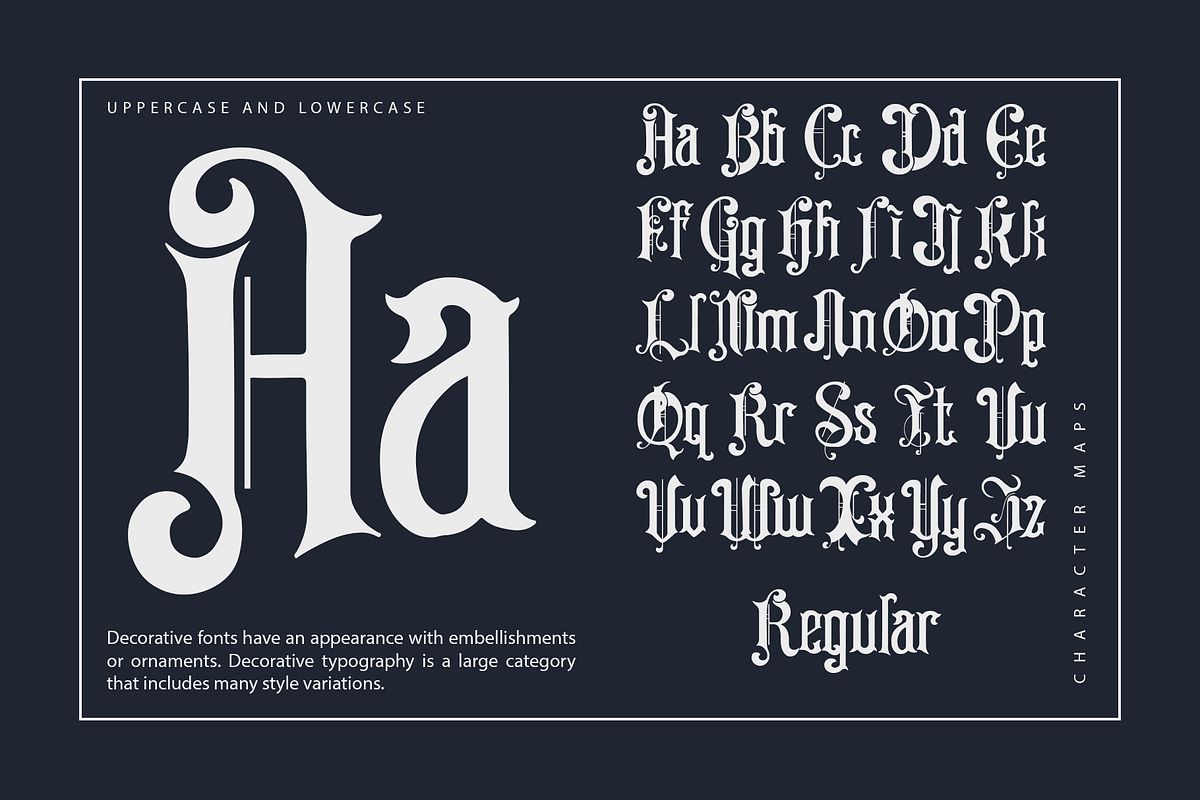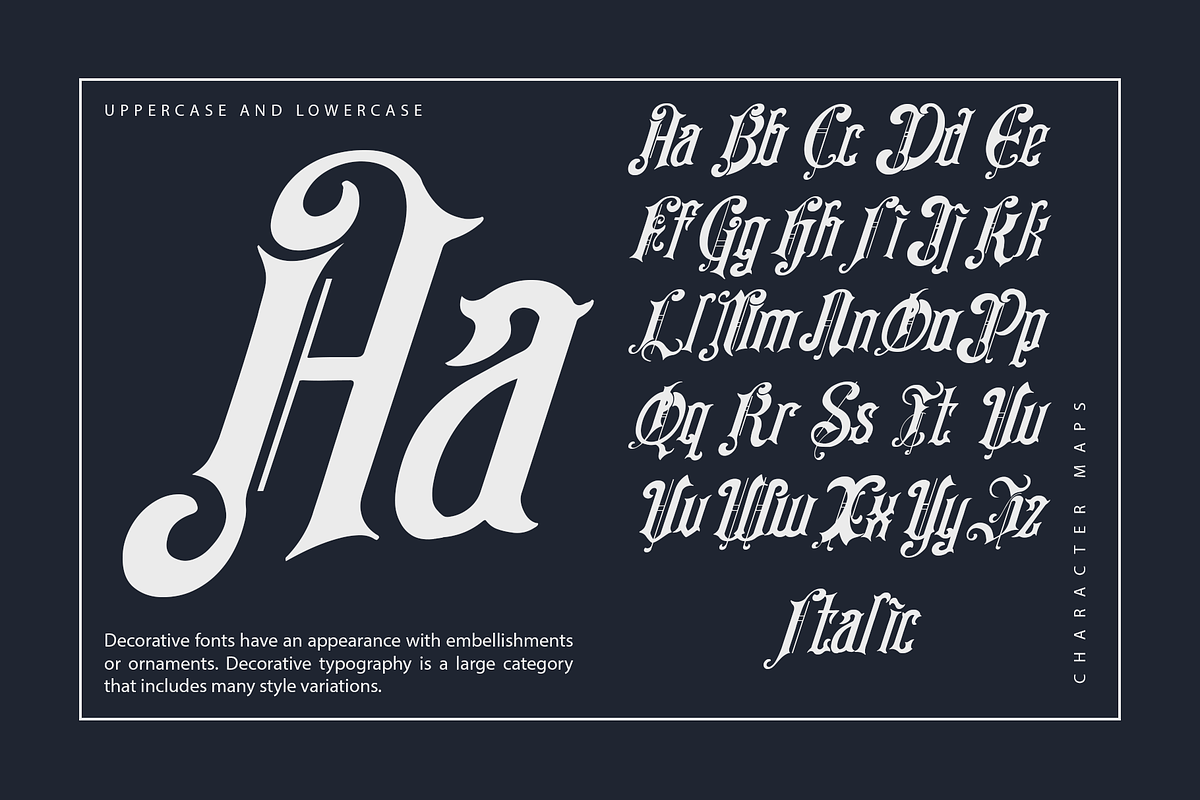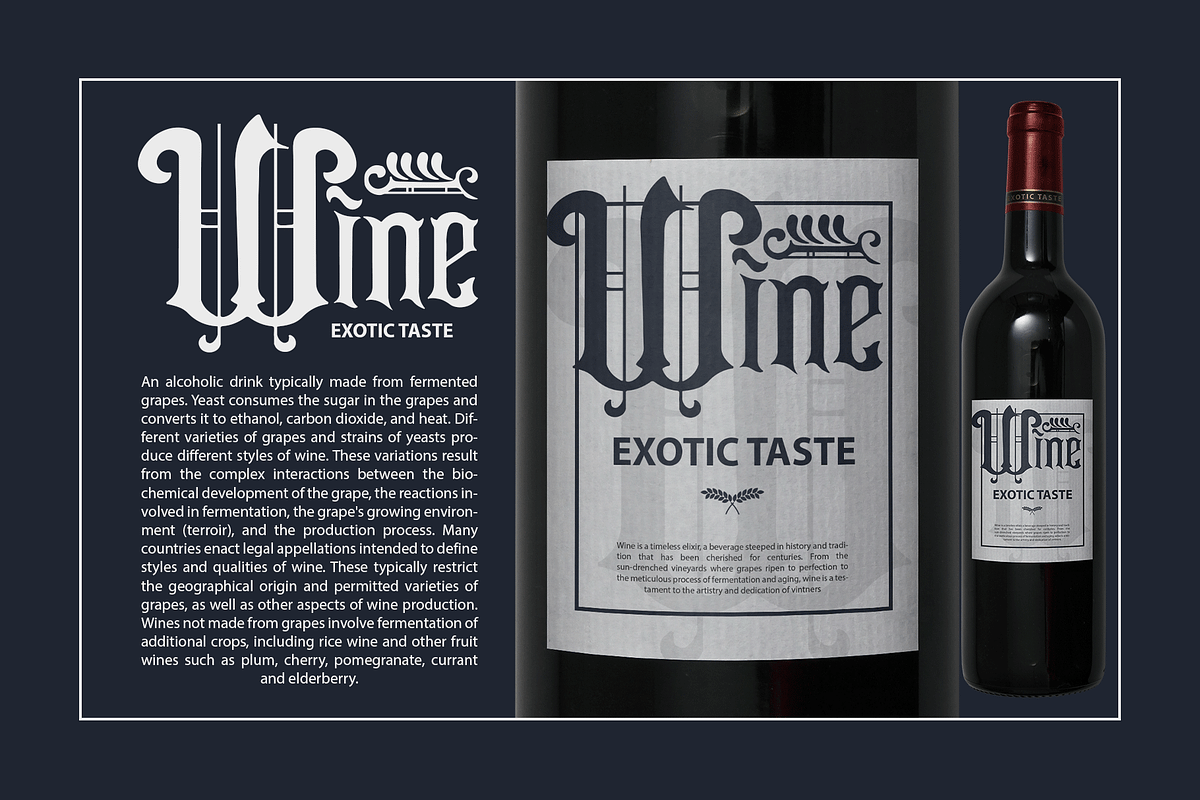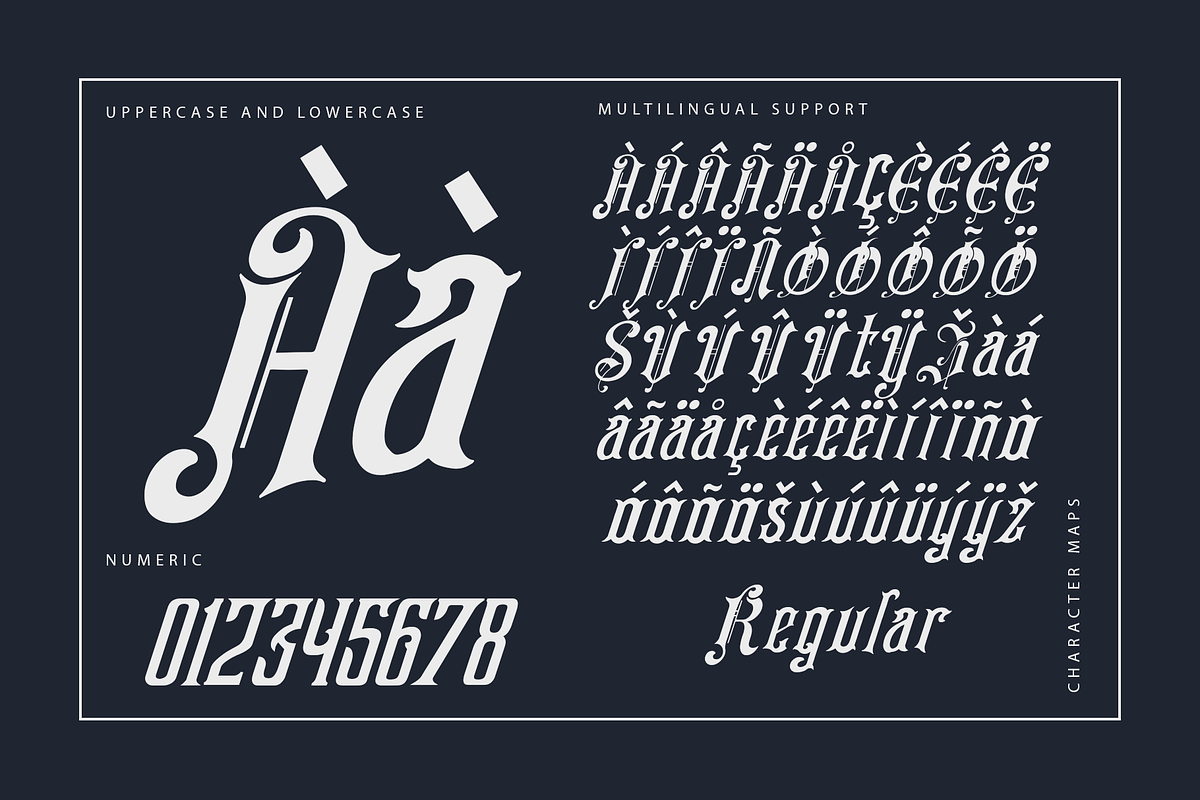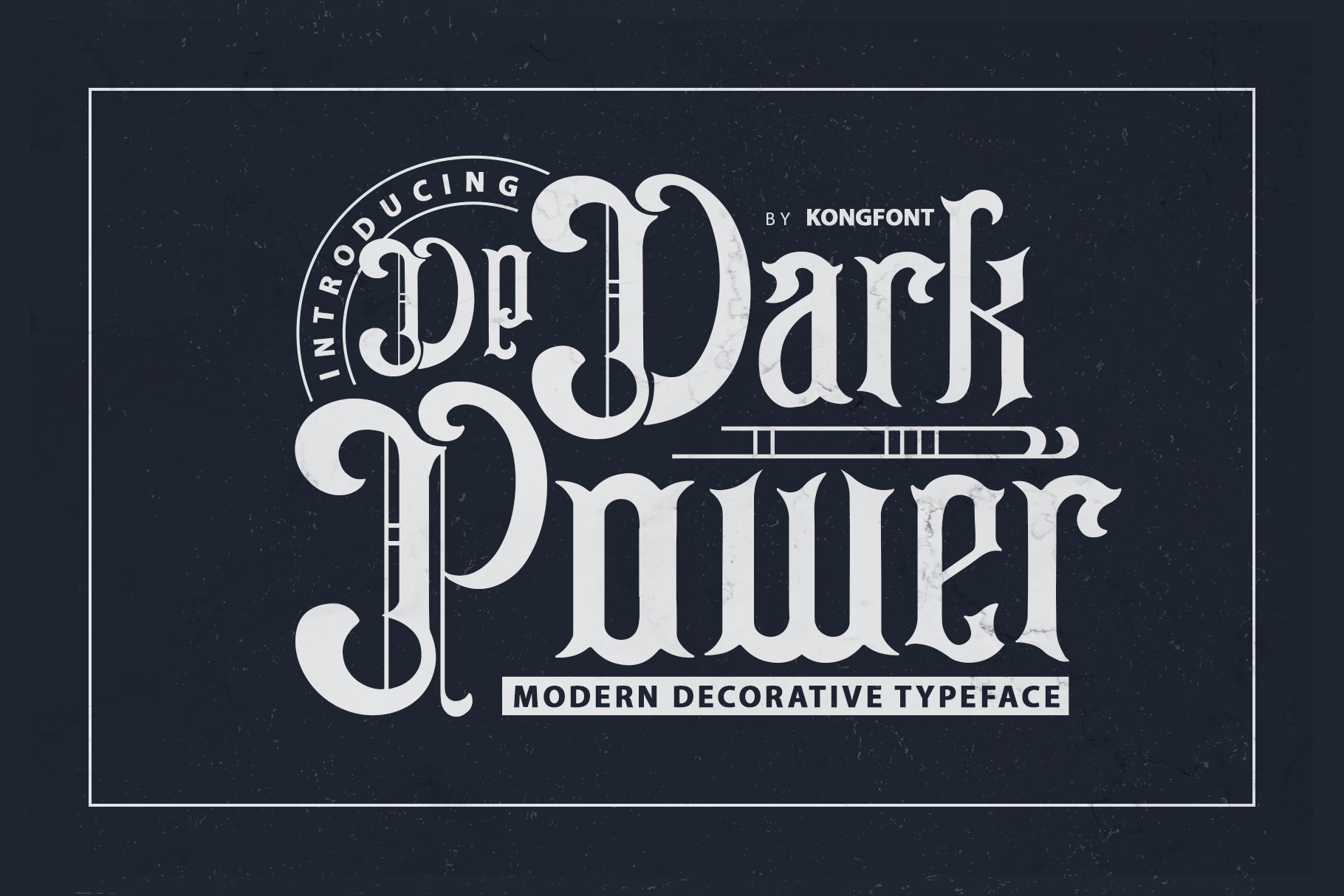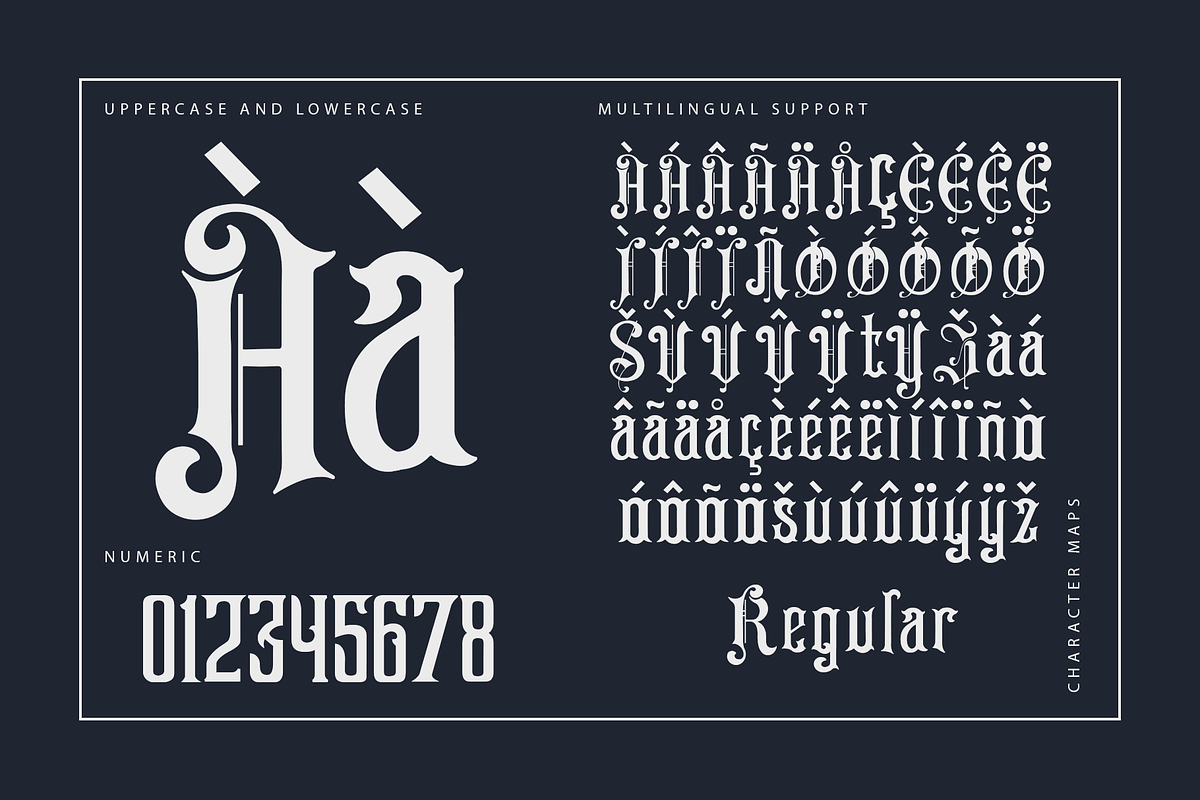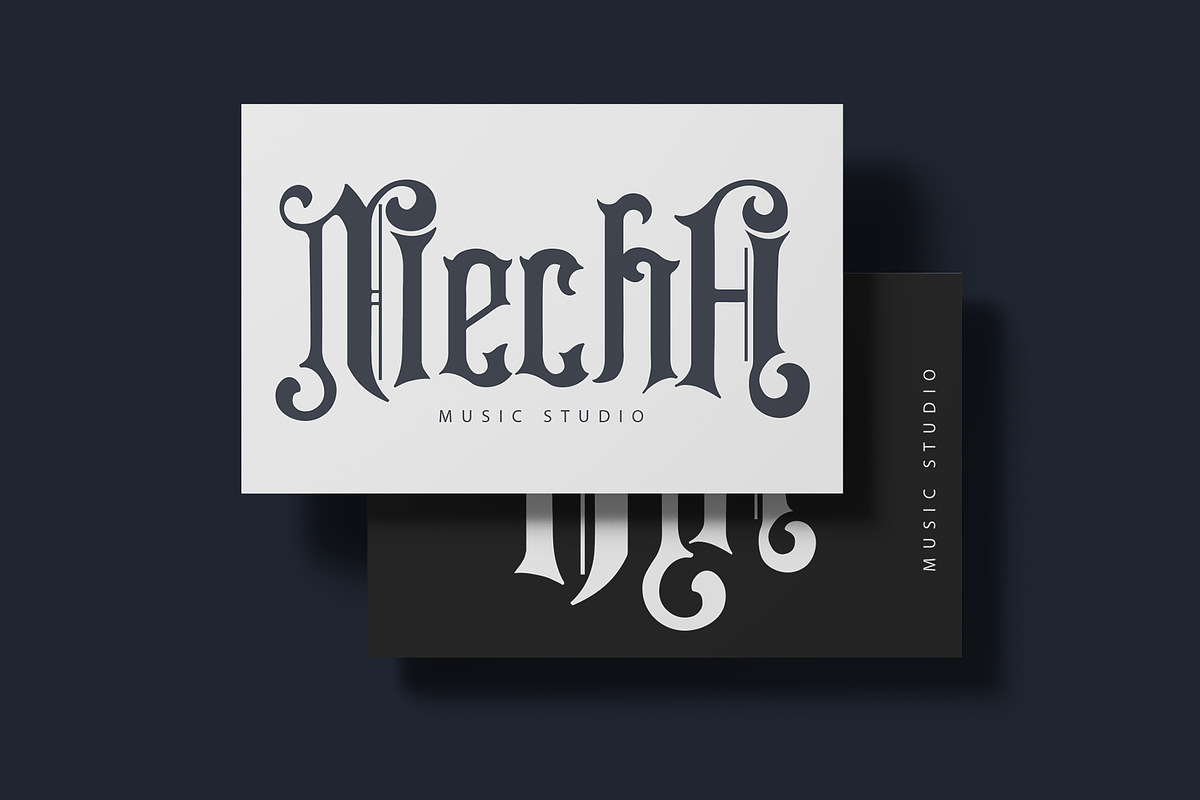
DarkPower-Modern Decorative Typeface
Dark Power - Modern Decorative Typeface
Introducing "Dark Power," a modern decorative typeface that exudes strength and boldness in every character. Perfect for designers looking to make a striking impact, Dark Power combines contemporary style with unique decorative elements to elevate your creative projects.
Ideal for eye-catching posters, dynamic logos, edgy branding, and standout headlines, Dark Power’s intricate design features and strong lines capture attention and convey confidence. Each letter is meticulously crafted to ensure both aesthetic appeal and readability, making your text powerful and memorable.
Dark Power includes a full set of uppercase and lowercase letters, numerals, punctuation marks, and special characters. This typeface provides extensive versatility, allowing for seamless integration into various design applications from digital artwork to print media.
Embrace the bold and dynamic energy of Dark Power to make a statement in your designs, whether you’re working on a modern campaign, a captivating cover, or a high-impact advertisement.